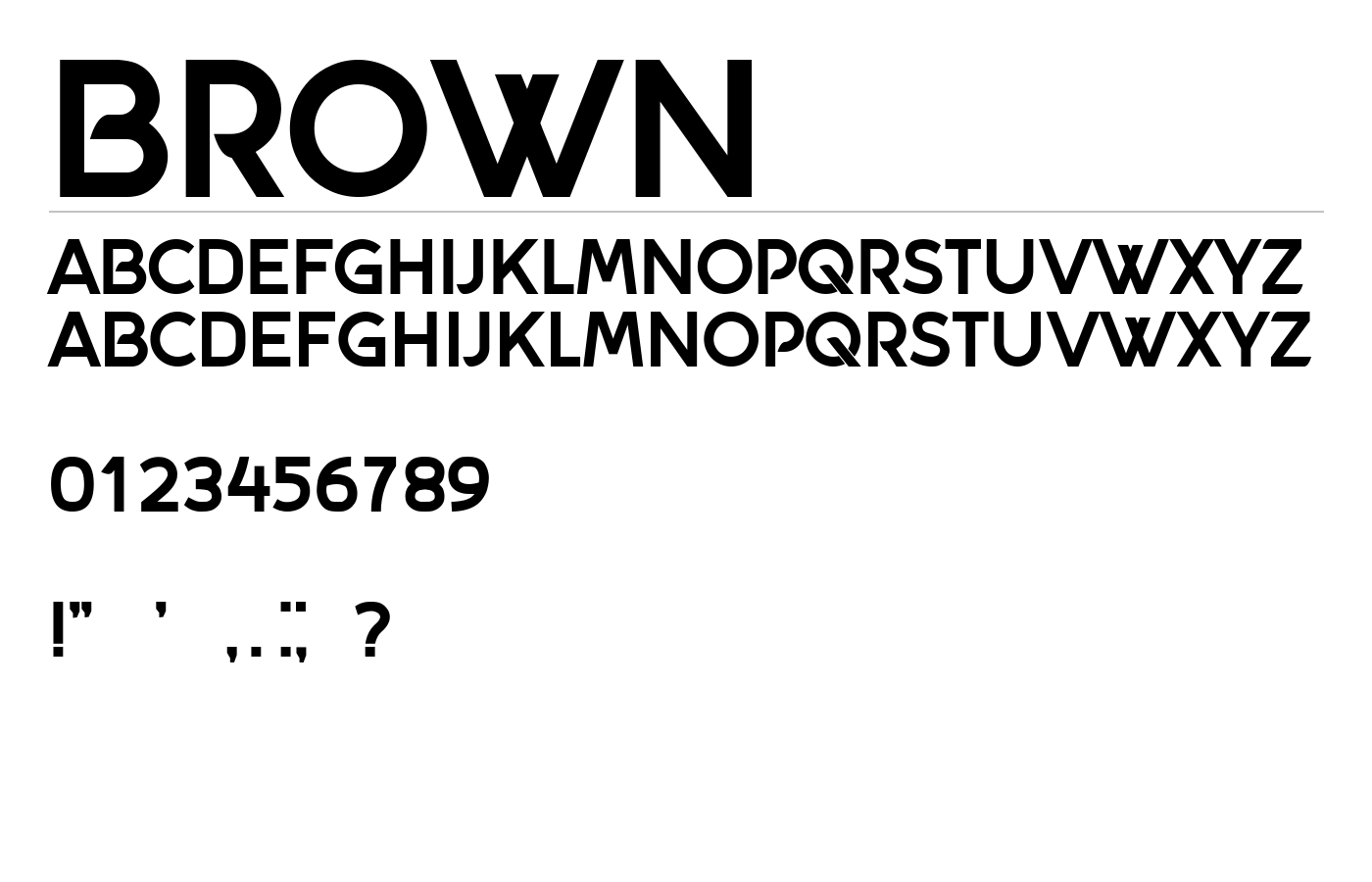
Brown Font is a bold, geometric sans serif with clean lines and a modern, industrial feel. Its sturdy letterforms and distinct angular details lend it a confident and contemporary personality, making it ideal for impactful headlines, branding, and editorial use where clarity and style are key. This font works well in contexts that demand strong visual presence and modernity, such as logos, posters, and digital interfaces.
Brown Font
About Brown Font
| Font family | Brown Font |